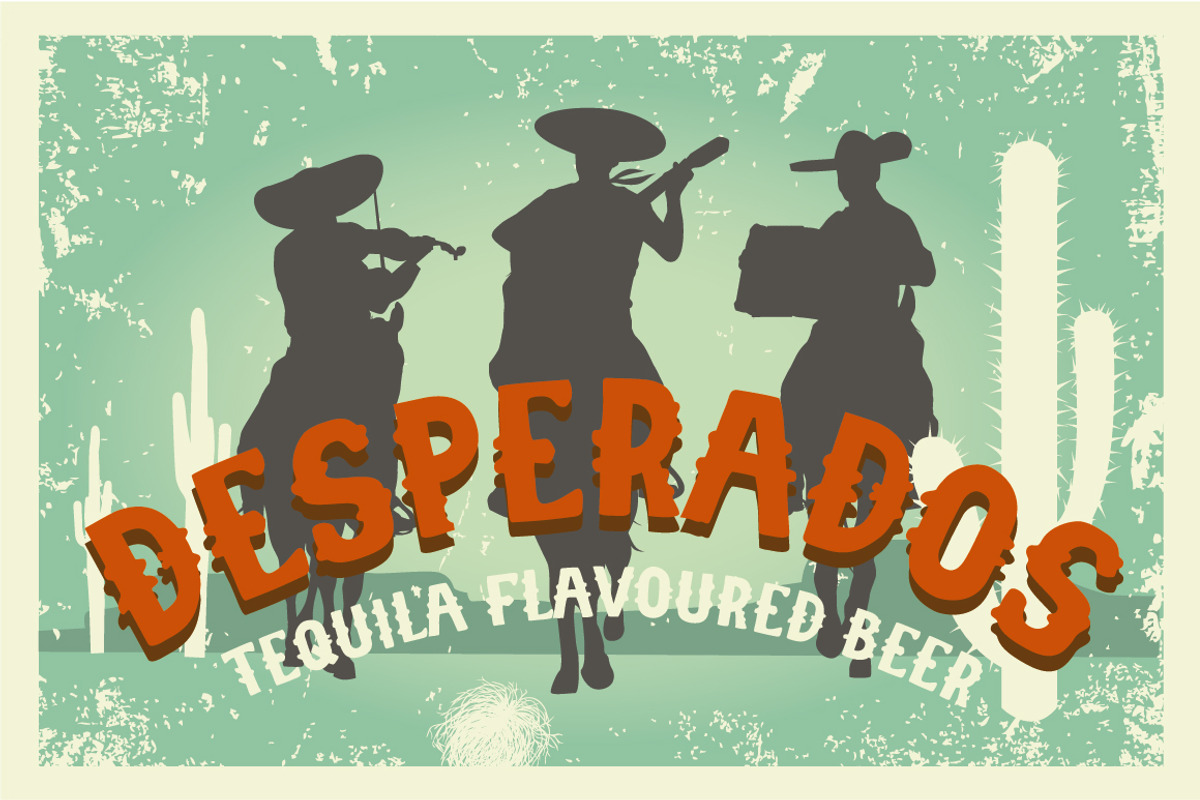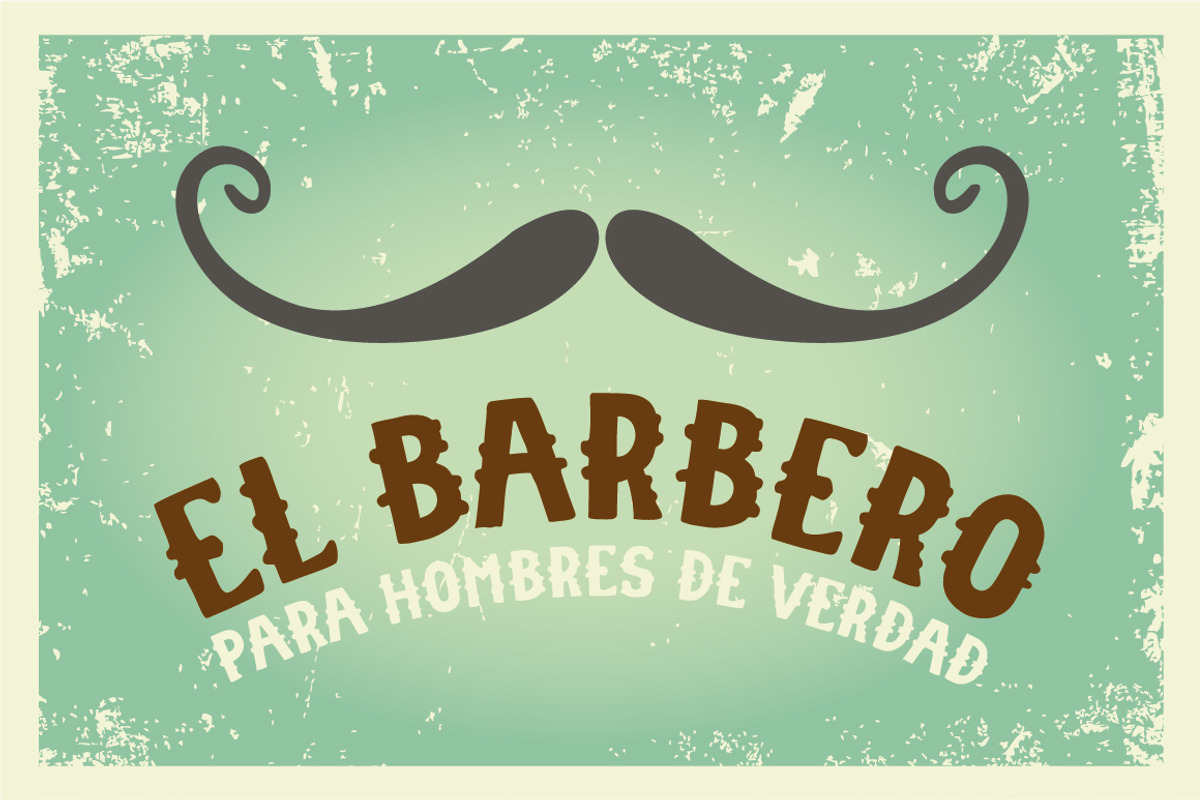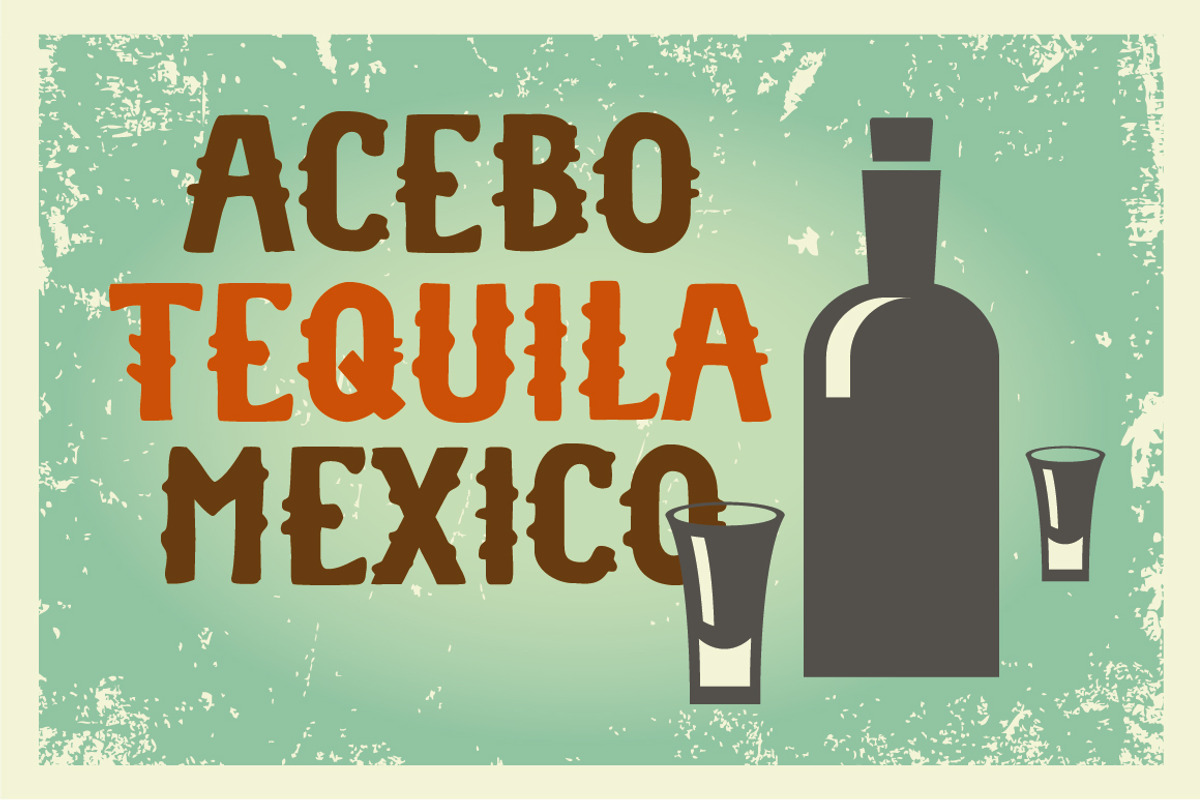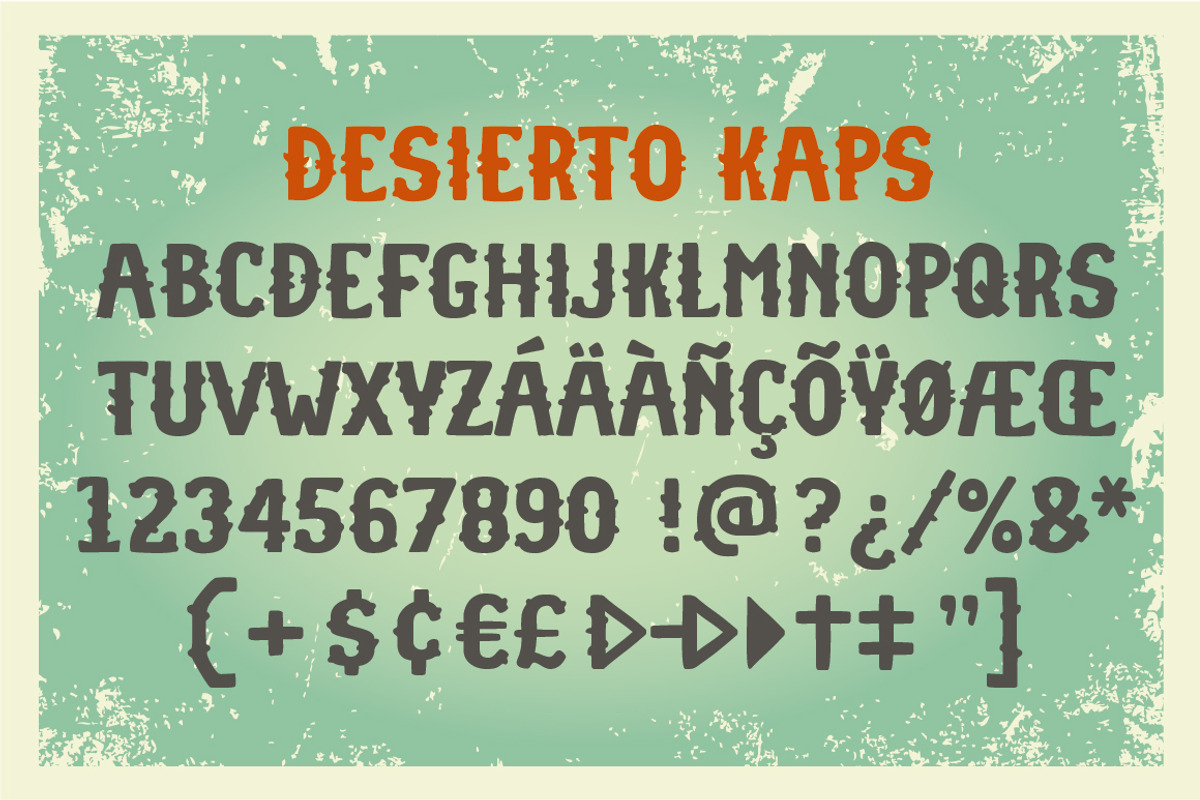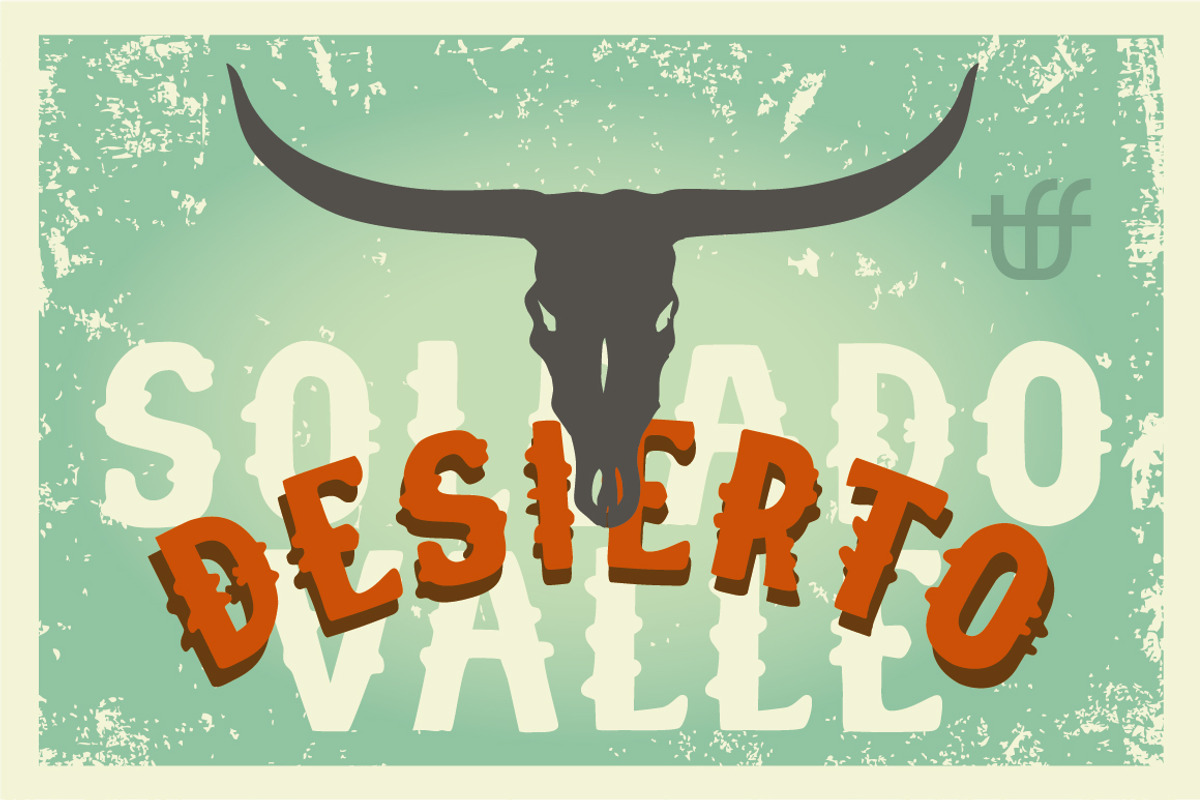
Desierto
Desierto by TypeFaith Fonts is a font selected for branding, posters, packaging, typography.
Why Desierto is worth a look
Desierto by TypeFaith Fonts fits naturally into Branding, posters, packaging, typography.